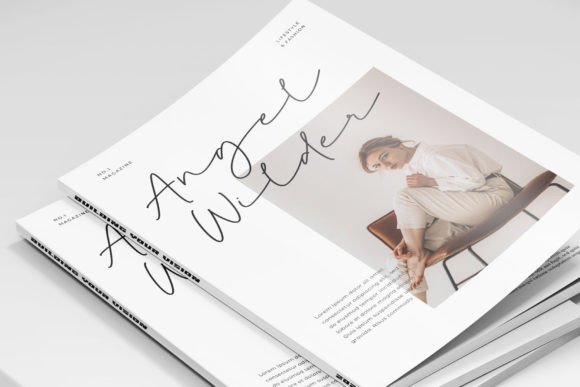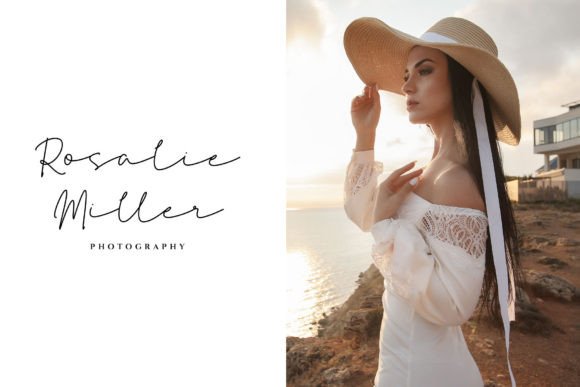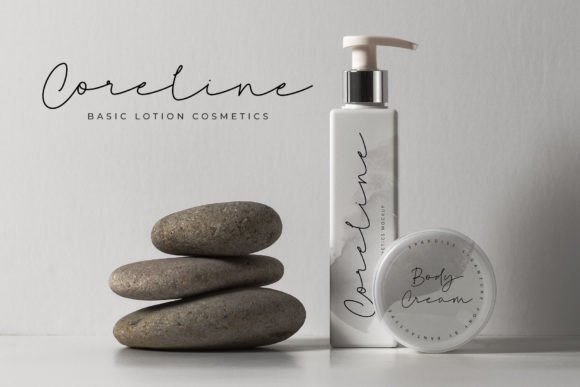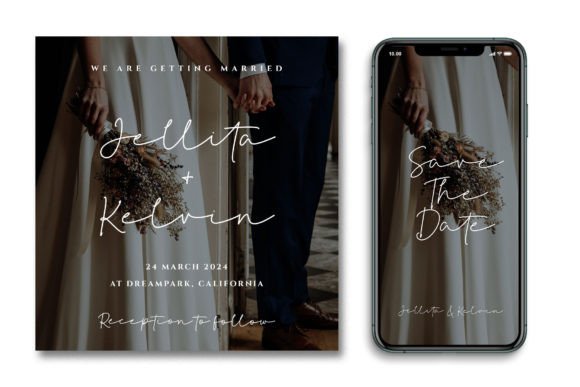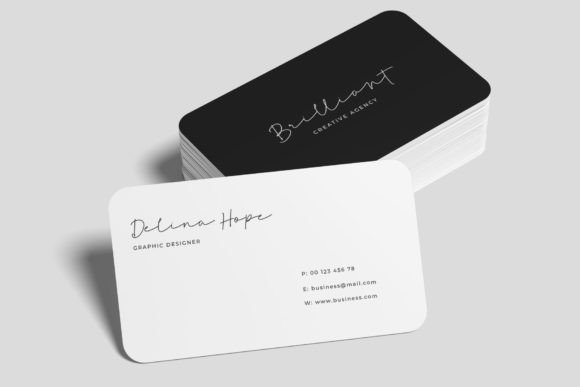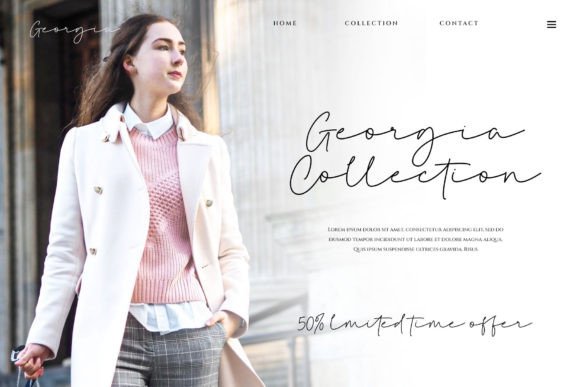
Introducing Brandise Signature Font: Elevate Your Creativity with Elegance
In the world of design, the right font can make all the difference. It’s not just about conveying a message; it’s about doing so with style and sophistication. For those seeking a touch of elegance in their creative projects, the Brandise Signature Font is a game-changer. This magical script font is carefully crafted to bring a sense of luxury and refinement to any design, making it perfect for a wide range of applications, from Instagram posts to DIY projects.
The Essence of Brandise Signature Font
Brandise Signature is more than just a font; it’s an experience. With its fluid strokes and graceful curves, this script font embodies the essence of calligraphy, bringing a personal and intimate feel to your designs. Whether you’re a professional designer looking to add a unique touch to your client’s projects or a crafter seeking to elevate your DIY creations, Brandise Signature offers the versatility and elegance you need.
One of the standout features of the Brandise Signature Font is its incredible versatility. Its elegant and flowing script makes it suitable for a variety of creative projects, including:
- Social Media Graphics: Transform your Instagram feed or Facebook posts into stunning visual stories with this beautiful script font.
- DIY Projects: Add a touch of sophistication to your handmade crafts, such as journals, cards, or home decor items.
- Branding and Packaging: Elevate your brand’s identity with a distinctive and memorable font that speaks to your audience’s sense of style.
- Stationery and Invitations: Create bespoke stationery sets, wedding invitations, or event flyers that exude elegance and class.
Crafting Art with Brandise Signature
The true magic of the Brandise Signature Font lies in its ability to turn any creative idea into a true piece of art. Its calligraphy-inspired script invites designers and crafters to explore new dimensions of creativity, making every project a masterpiece. With Brandise Signature, you’re not just choosing a font; you’re embracing a design philosophy that values beauty, elegance, and personal expression.
Why Choose Brandise Signature Font?
In a sea of digital fonts, Brandise Signature stands out for several reasons:
- Unique Elegance: Its distinctive script offers a fresh alternative to more common fonts, ensuring your designs stand out.
- High Readability: Despite its elegant nature, Brandise Signature maintains high readability, making it suitable for both headings and body text.
Brandise Signature Font is a magical script font that brings a touch of elegance to any creative project. Its versatility, readability, and unique style make it an indispensable tool for designers and crafters alike. Whether you’re looking to elevate your professional designs or add a personal touch to your DIY creations, Brandise Signature is the perfect choice. Unlock the full potential of your creativity and turn your ideas into art with the enchanting Brandise Signature Font.